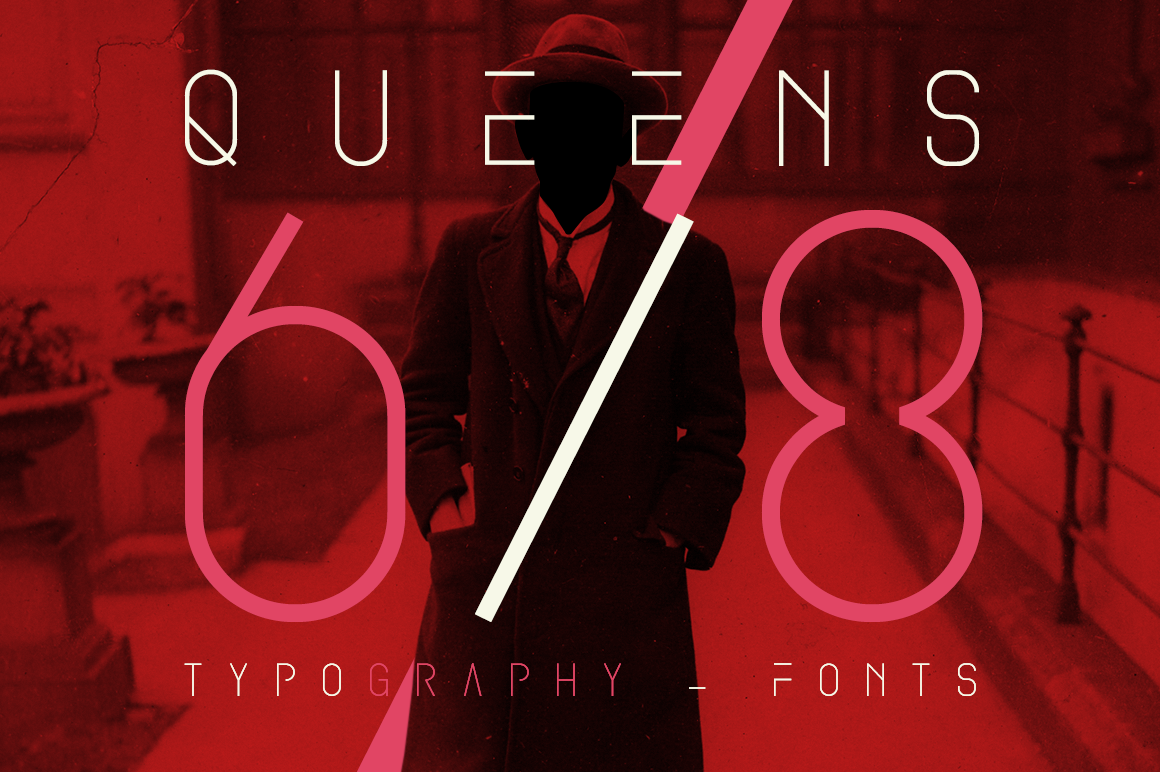
QUEENS 68 - Fonts.
Queens six eight is an original typography inspired by the S.F fonts combined with a classic lettering and right end. some letters have missing elements and other have true line shape in constant evolution. Find here all glyphs for european lettering and more. But again, Queens six eight is in constant evolution.
Last but not least, Queens six eight have some special glyphs you can combined to make avant-gardiste type composition.